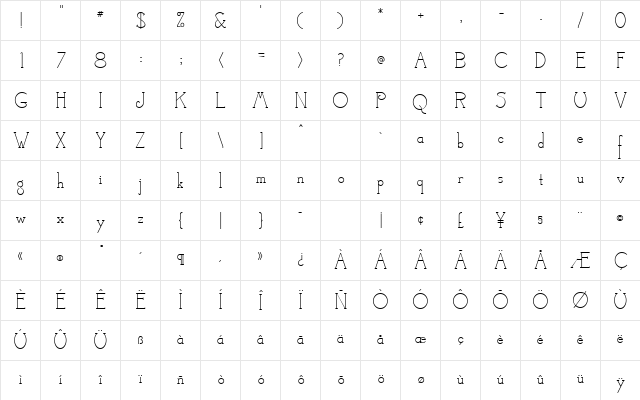
Camelot MF Regular Free Font
Camelot MF Regular
Design Context for Camelot MF
Camelot MF is a composed and adaptable typeface that performs quietly and consistently across a wide range of design contexts.